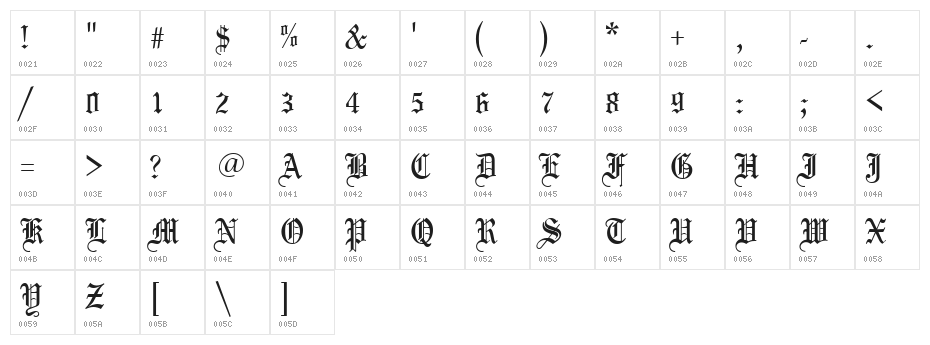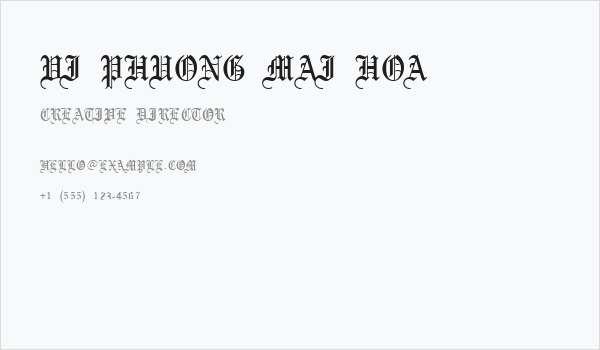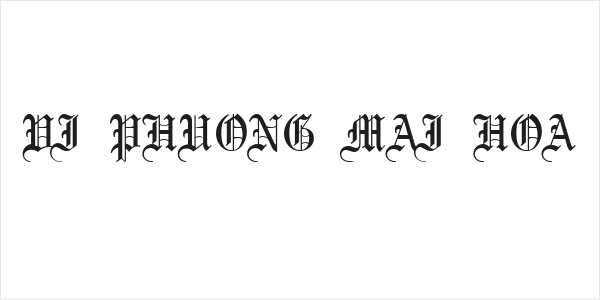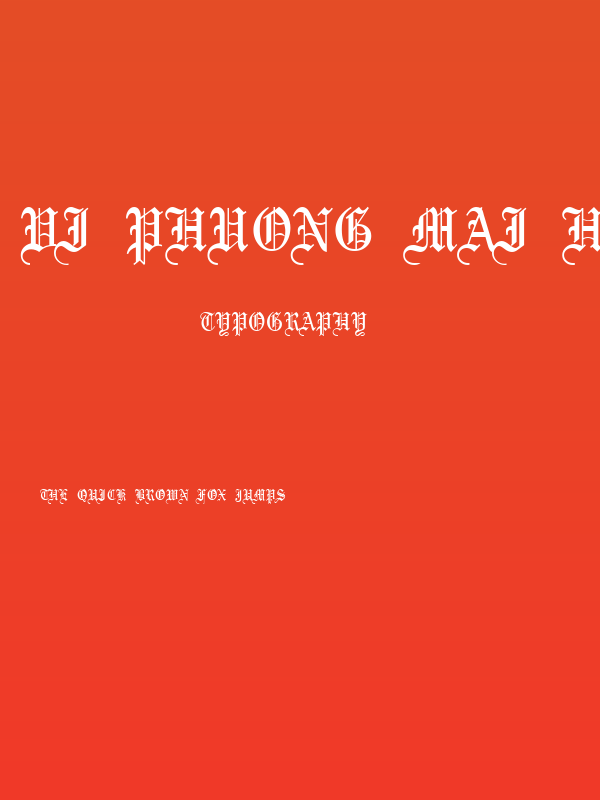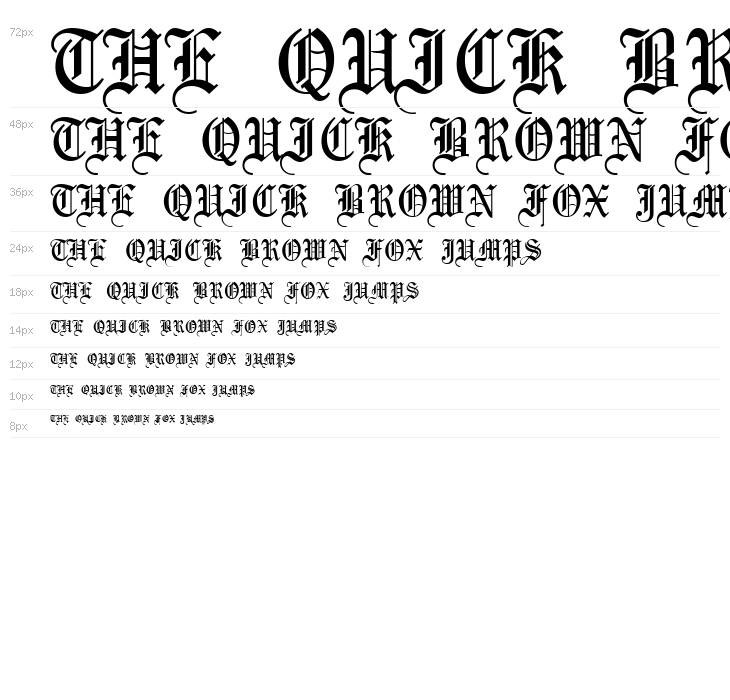
VI Phuong Mai Hoa Font
VI Phuong Mai Hoa Description
This font exhibits a classic blackletter style, characterized by its ornate and intricate design. The letters feature sharp, angular lines with decorative swirls and flourishes, typical of traditional Gothic script. The uppercase letters are particularly elaborate, with extended serifs and embellishments that give them a majestic appearance. The lowercase letters maintain a consistent style, complementing the uppercase with their own unique flair. The numerals are bold and follow the same decorative pattern, ensuring uniformity across the typeface. Special characters are equally ornate, making this font ideal for projects that require a touch of elegance and historical charm.
Overall StyleVintage
Use CaseHeadlines, Logos, Decorative text
Proposed ProjectsIdeal for certificates, invitations, branding for luxury products, or any project needing a historical or elegant touch.